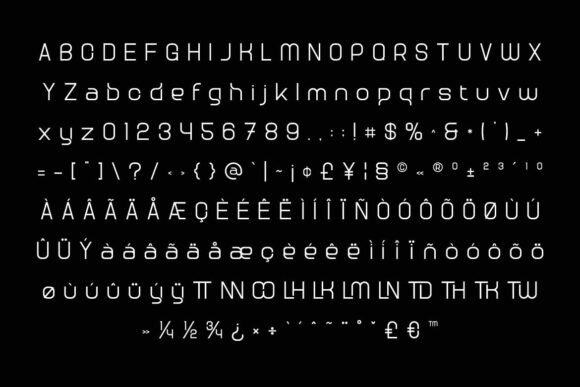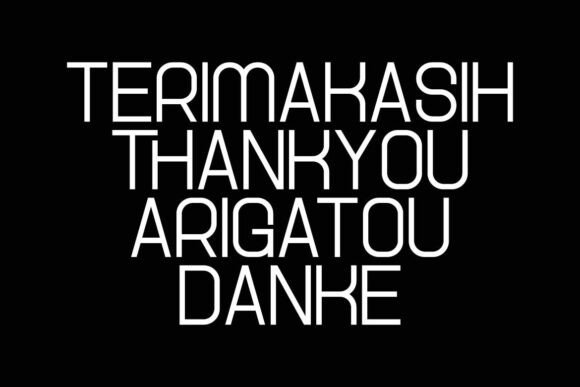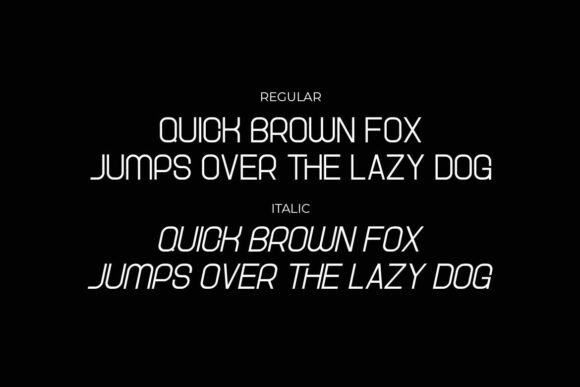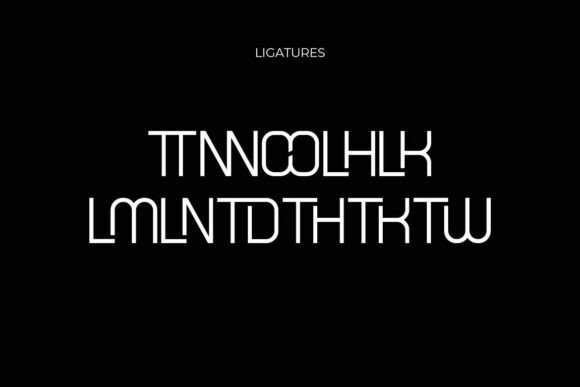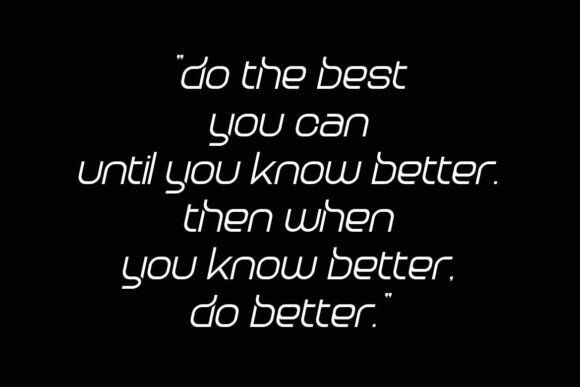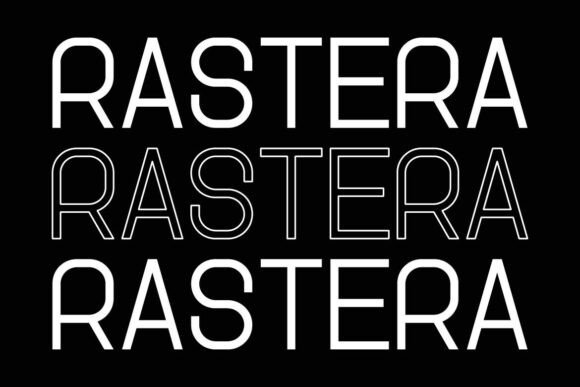
Introduction to Rastera Font
As a designer, you know that sometimes the smallest details can make the biggest impact on a creative project. You’re staring at your computer screen, pouring over lines of code, trying to find that perfect font to bring your vision to life. And then, it hits you – the perfect font. For me, it was Rastera Font. Its clean lines, balanced proportions, and refined spacing made my design come alive in a way that nothing else could.
Whether you’re working on a high-quality design project or simply need a reliable design resource, Rastera Font is an excellent choice. Its modern elegance and clarity make it perfect for a variety of applications, from print materials to digital interfaces. And the best part? You can download it for free, giving you the freedom to experiment and push the boundaries of your creativity. With Rastera Font, you can achieve a sleek and professional look that’s sure to impress.
From logos to typography, Rastera Font is a versatile tool that’s sure to become a staple in your design arsenal. Its transparent background makes it easy to layer and combine with other design elements, giving you endless possibilities for creative expression. Whether you’re working on a small project or a large-scale campaign, Rastera Font is a valuable asset that’s sure to elevate your design to the next level.
Key Features of Rastera Font
- Rastera Font offers a high-quality design resource ideal for various creative projects.
- This font features a transparent background, making it easy to layer over images or other design elements.
- The Rastera Font is available in a single weight, making it suitable for a wide range of applications, from headings to body text.
- Rastera Font is designed to be highly legible, making it an excellent choice for any creative project requiring clear and readable typography.
Honest Review: Rastera Font
I recently had the chance to work with the Rastera Font, and I must say it’s been a game-changer for my creative projects. As a designer, I’m always on the lookout for high-quality design resources that can elevate my work, and Rastera Font definitely delivers.
Here are some things that work well with Rastera Font:
- ⚡️ Wide range of font styles and weights, making it perfect for various creative projects.
- ✨ High-resolution graphics that ensure crisp and clear text display.
- ✨ Transparent background option, allowing for seamless integration with any design element.
However, I did encounter a few limitations with Rastera Font:
- ⚠️ Limited customization options, which might be a drawback for some designers.
Overall, I’m really impressed with the Rastera Font, and I would highly recommend it to designers looking for a high-quality design resource for their creative projects. With its wide range of font styles and weights, high-resolution graphics, and transparent background option, it’s a great addition to any designer’s toolkit.
Tips for Getting the Most Out of Rastera Font
Use Rastera Font in conjunction with other design elements, such as images and graphics, to create a visually appealing design. Experiment with different font sizes and colors to add depth and interest to your design. With its free download and high quality, Rastera Font is a valuable resource for any creative project.
Common Use Cases for Rastera Font
Rastera Font is perfect for designing logos, business cards, and other marketing materials. It’s also great for creating social media graphics and presentations. Its unique design and high quality make it a popular choice among designers and creatives.
Q: Does Rastera Font support transparent backgrounds?
Yes, Rastera Font supports transparent backgrounds, making it ideal for designs that require a seamless integration with other elements. This feature allows you to create stunning visual effects and take your creative project to the next level.